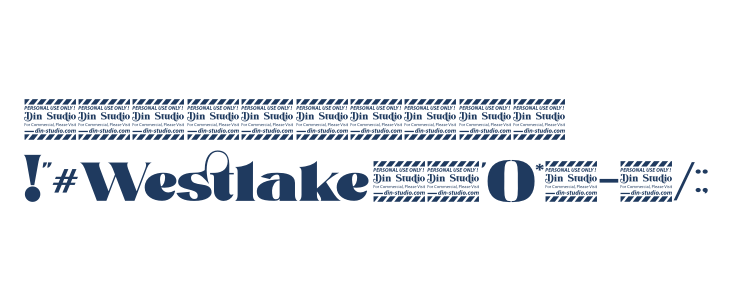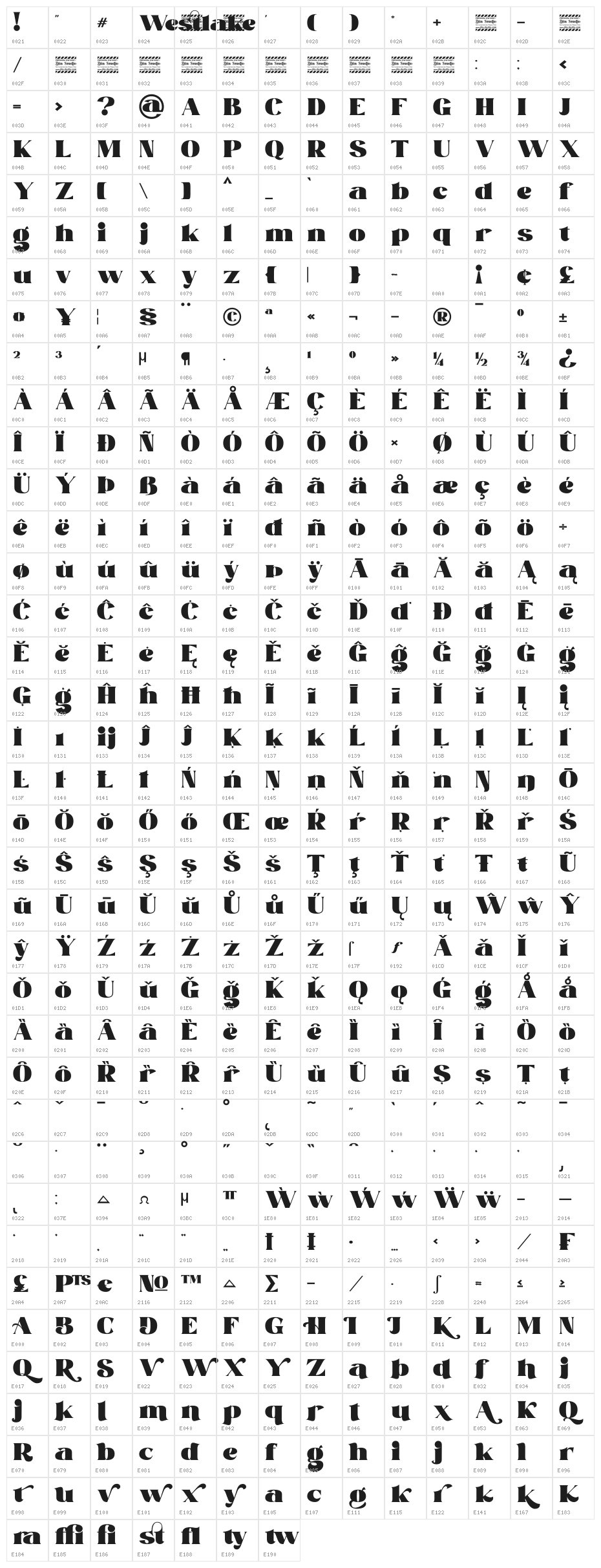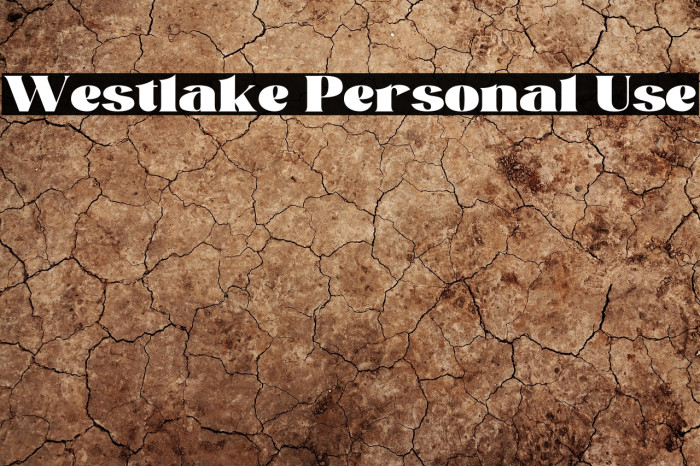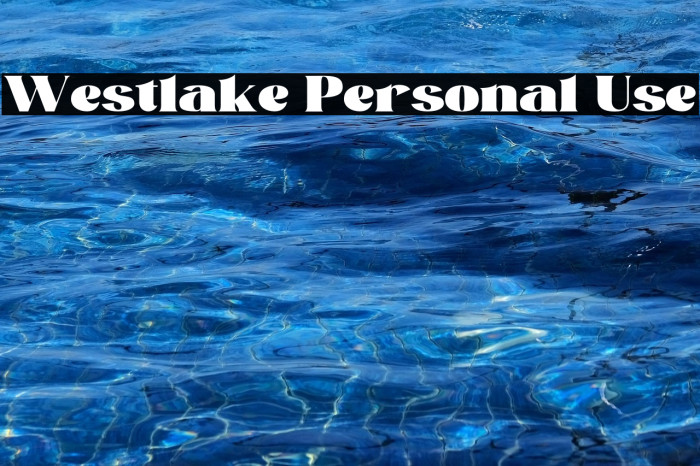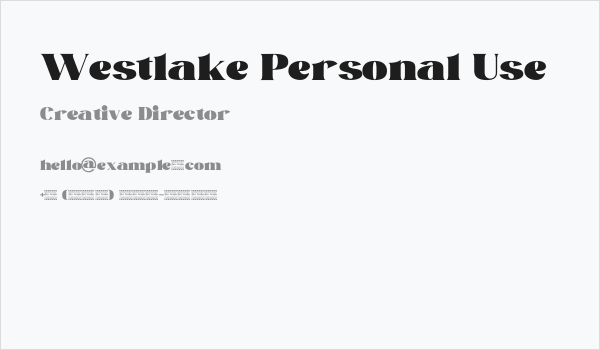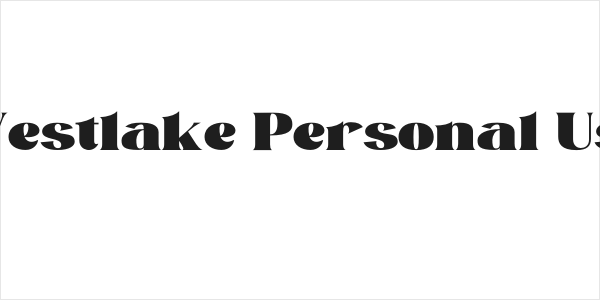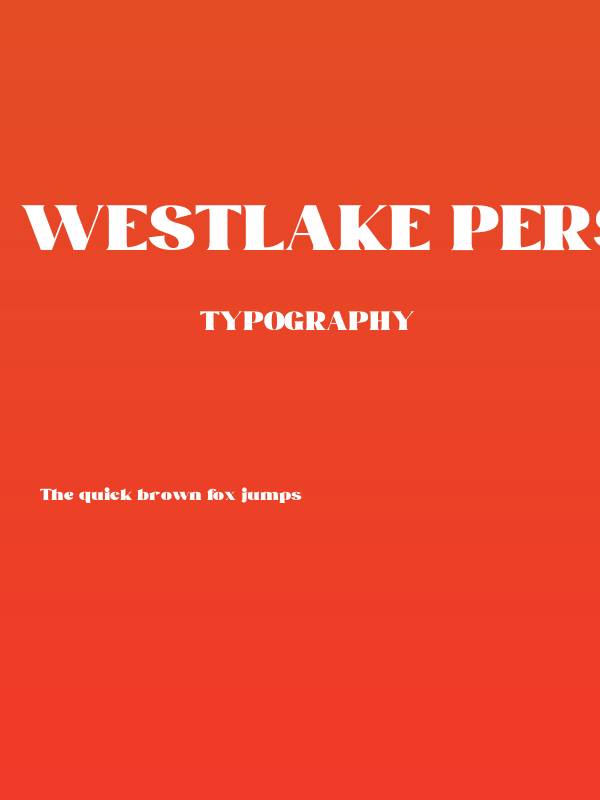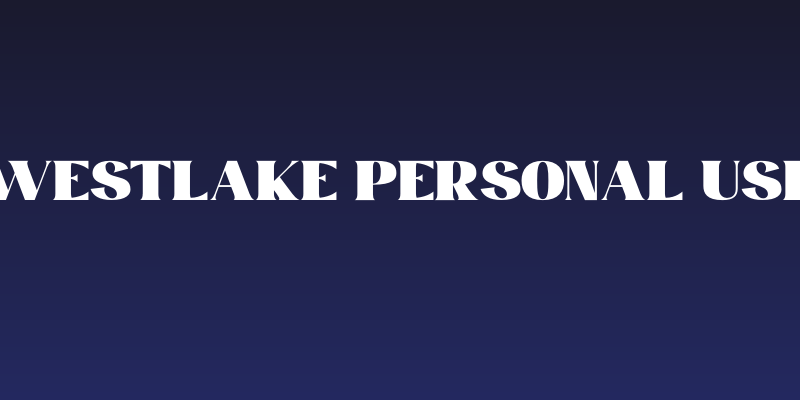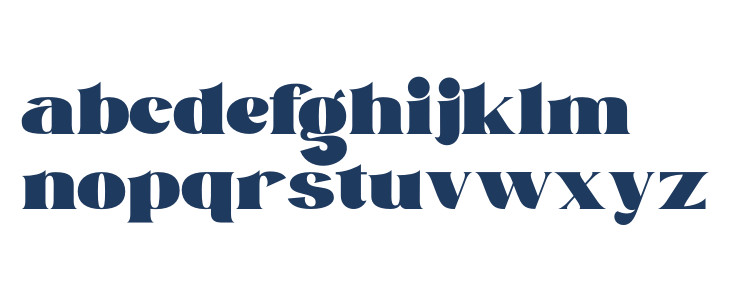
Westlake Personal Use Font
Westlake Personal Use Description
This font features a bold and striking design with high contrast between thick and thin strokes, creating a dramatic and eye-catching appearance. The uppercase letters are particularly wide and commanding, while the lowercase letters maintain a consistent boldness. The serifs are pronounced, adding a touch of elegance and sophistication. The overall style is modern with a hint of vintage flair, making it suitable for projects that require a strong visual impact. The special characters are designed with the same boldness, ensuring consistency across all elements.
| Overall Style | Modern, Vintage |
| Proposed Projects | Ideal for branding, headlines, posters, and any design that requires a bold statement. |